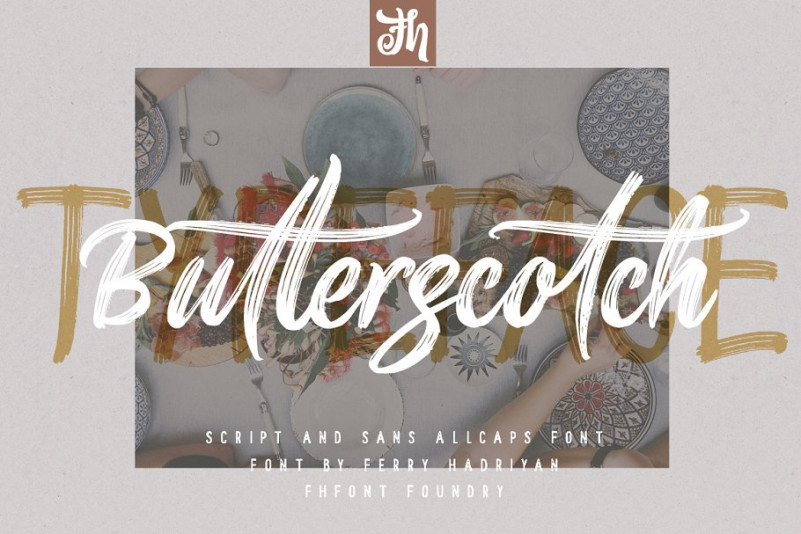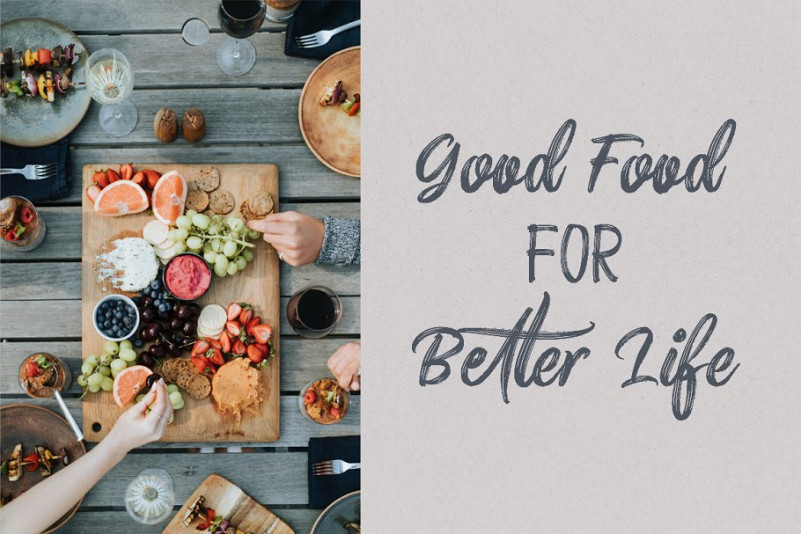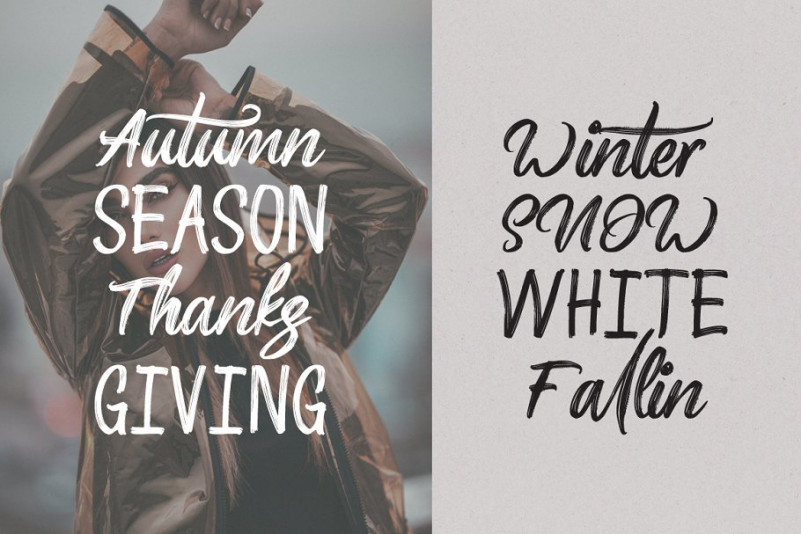
Butterscotch Font
Butterscotch is Script and Sans Allcaps Font with Handlettering Brush Style, with opentype feature include of the font. Suitable for design, element design, wedding, event, t-shirt, logo, badges, sticker, and awesome work, etc…